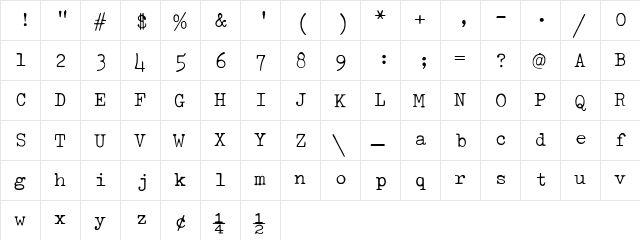
01196c2 Regular
Design Context for 01196c2 Typeface
01196c2 offers clean, dependable letterforms without strong stylistic allegiance, making it a practical choice for designers who need flexibility.